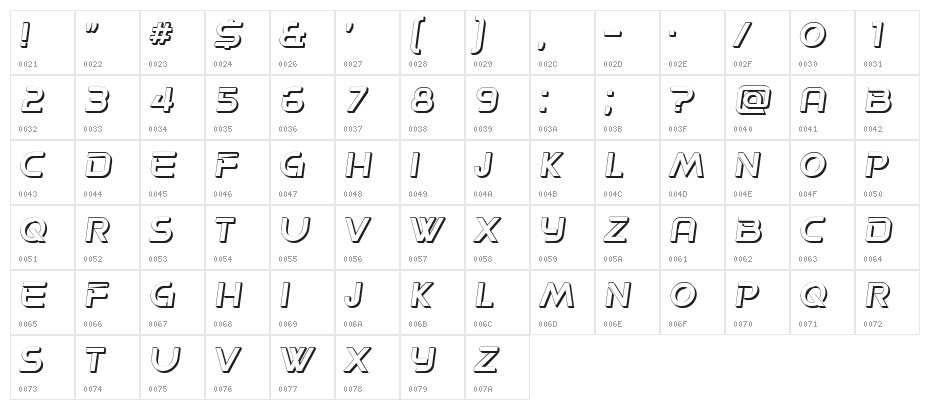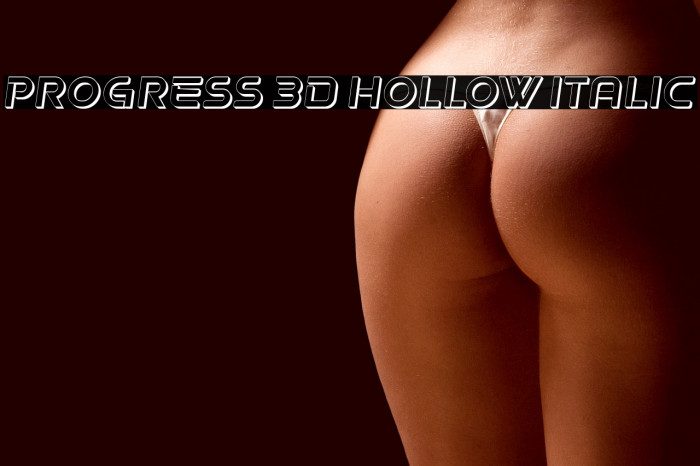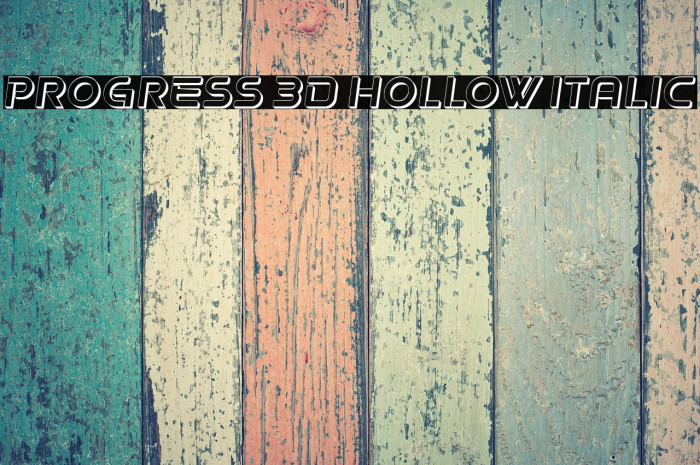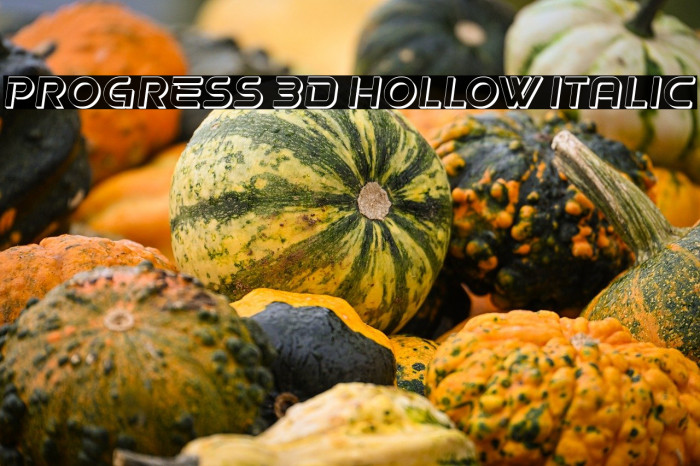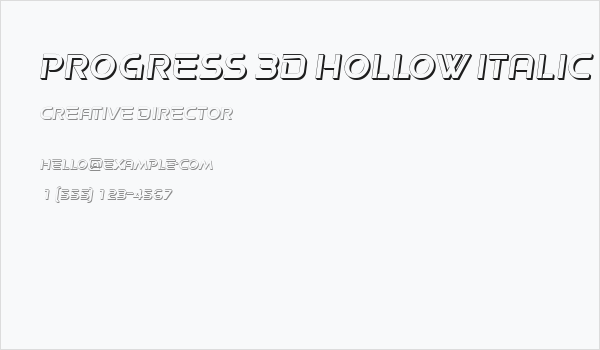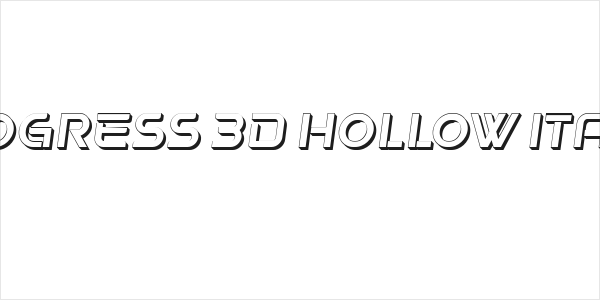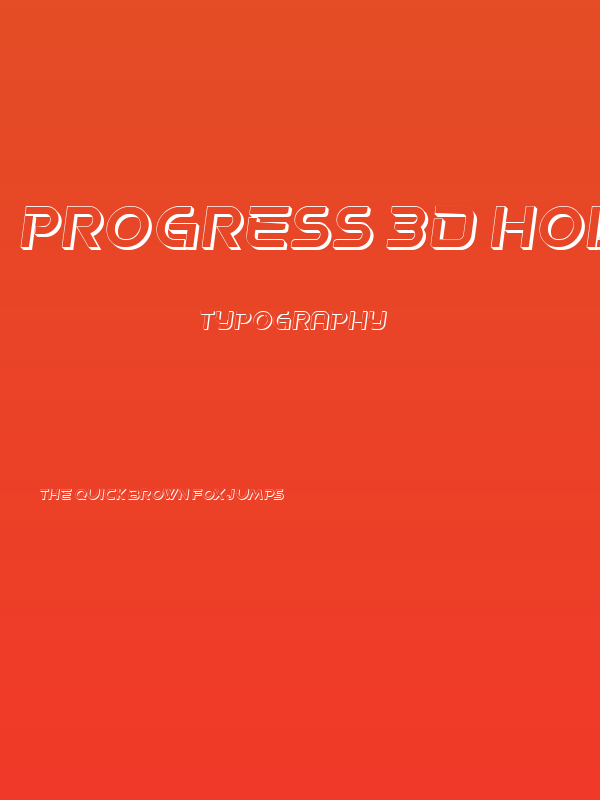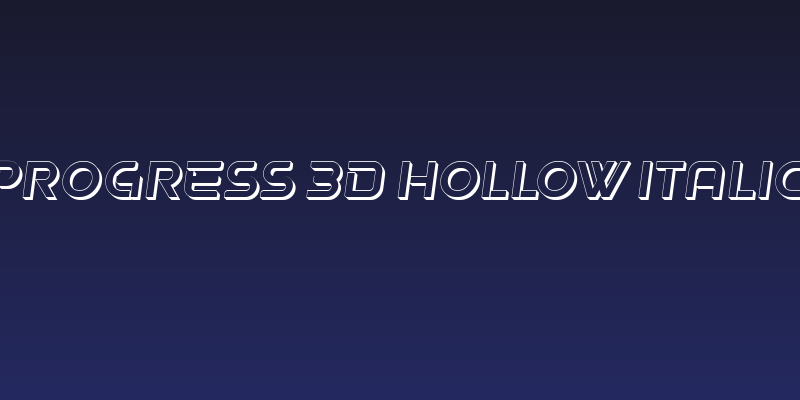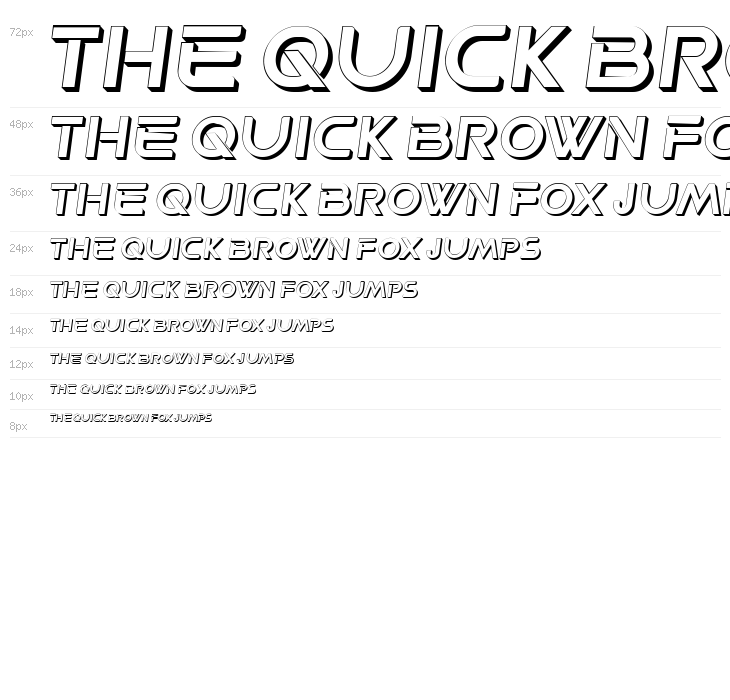
Progress 3D Hollow Italic Font
Progress 3D Hollow Italic Description
This font features a bold, three-dimensional hollow design with an italic slant, giving it a dynamic and futuristic appearance. The letters are outlined with a thick black stroke, creating a strong contrast against the white interior. The geometric shapes and clean lines contribute to its modern aesthetic, making it suitable for eye-catching designs. The uppercase and lowercase letters maintain a consistent style, with numerals and special characters complementing the overall look. The italic angle adds a sense of motion and energy, enhancing its appeal for creative projects.
| Proposed Projects | Ideal for futuristic branding, tech-related designs, posters, and video game titles. |